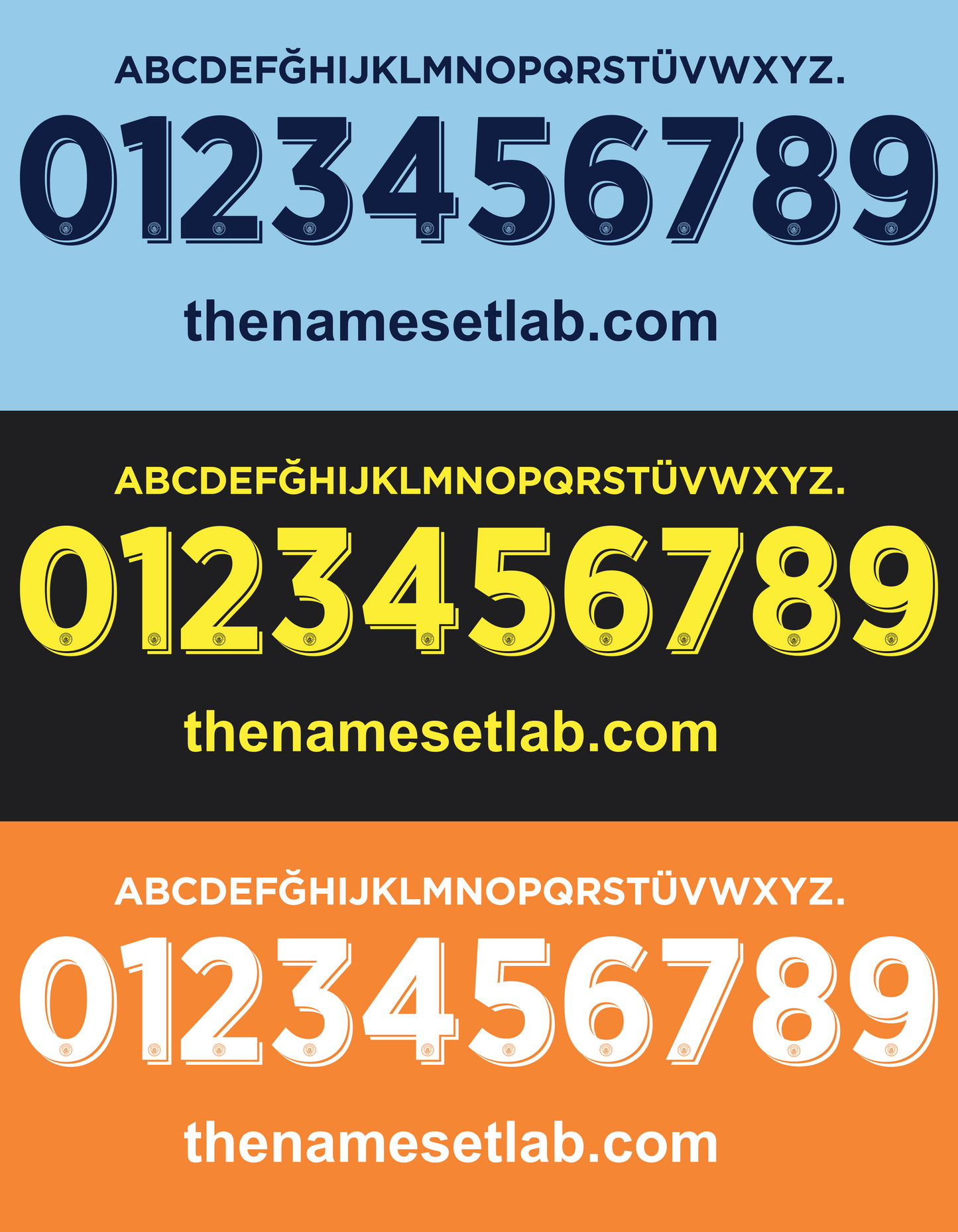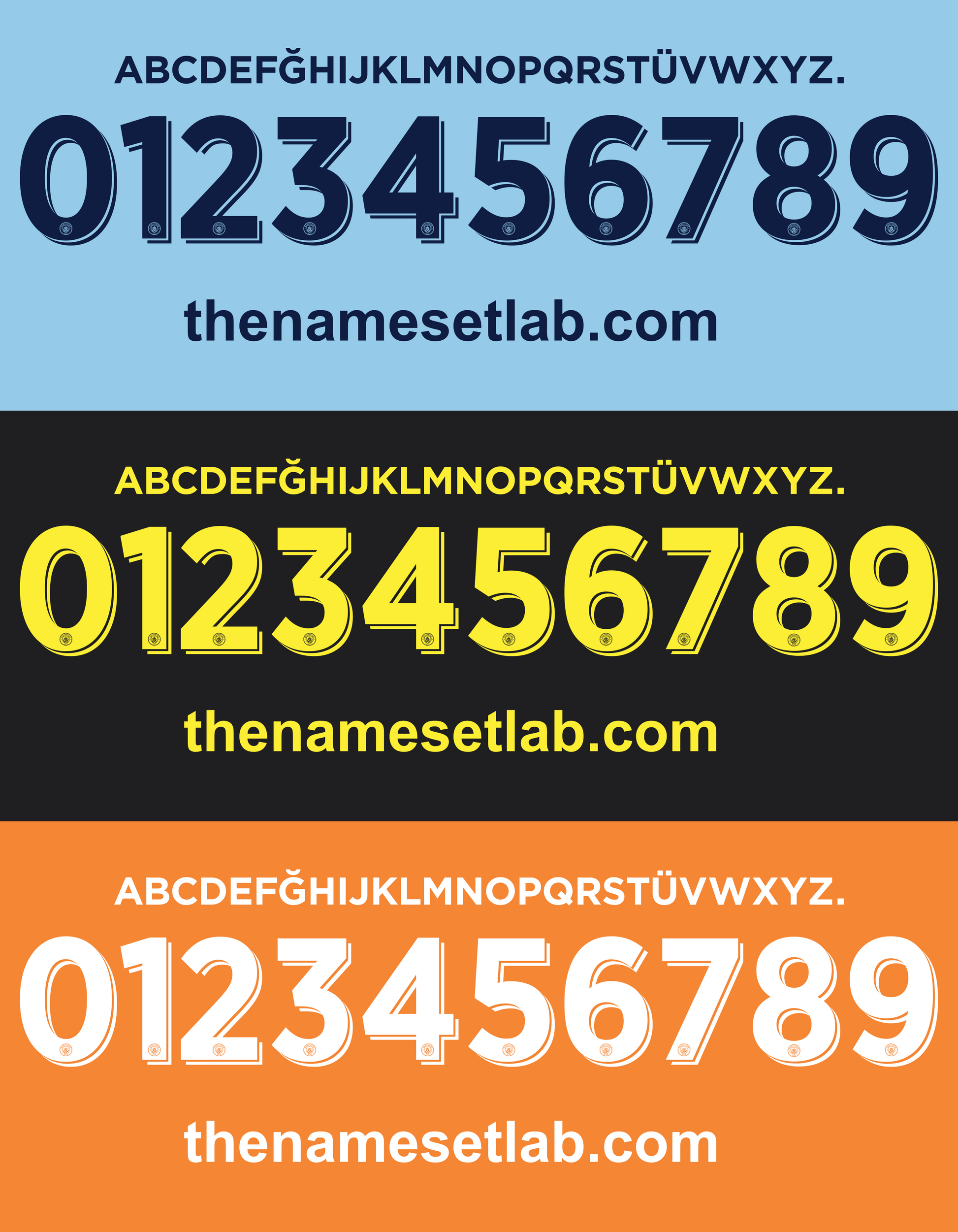
Manchester City-16-17 UCL / Cup Font Nameset AI Vector File
Download this Manchester City 2016-2017 UCL / Cup nameset as an editable .ai vector file. Styled in the 16/17 font, it’s perfect for recreating shirts from Pep Guardiola’s first season in charge, setting the stage for City’s modern dominance. Great for custom kit projects or football memorabilia artwork.